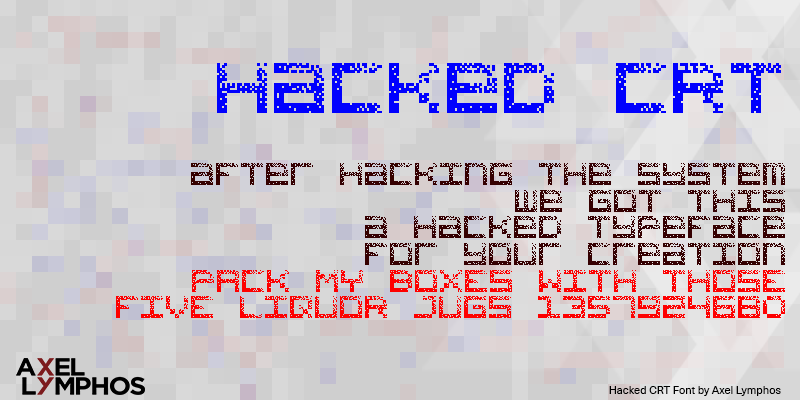
Font name: | Hacked CRT |
Author: | Axel Lymphos |
Note by Axel Lymphos | |
This font is inspired from damaged pixel font. My first time using FontStruct. A hacked typeface for your creation. |